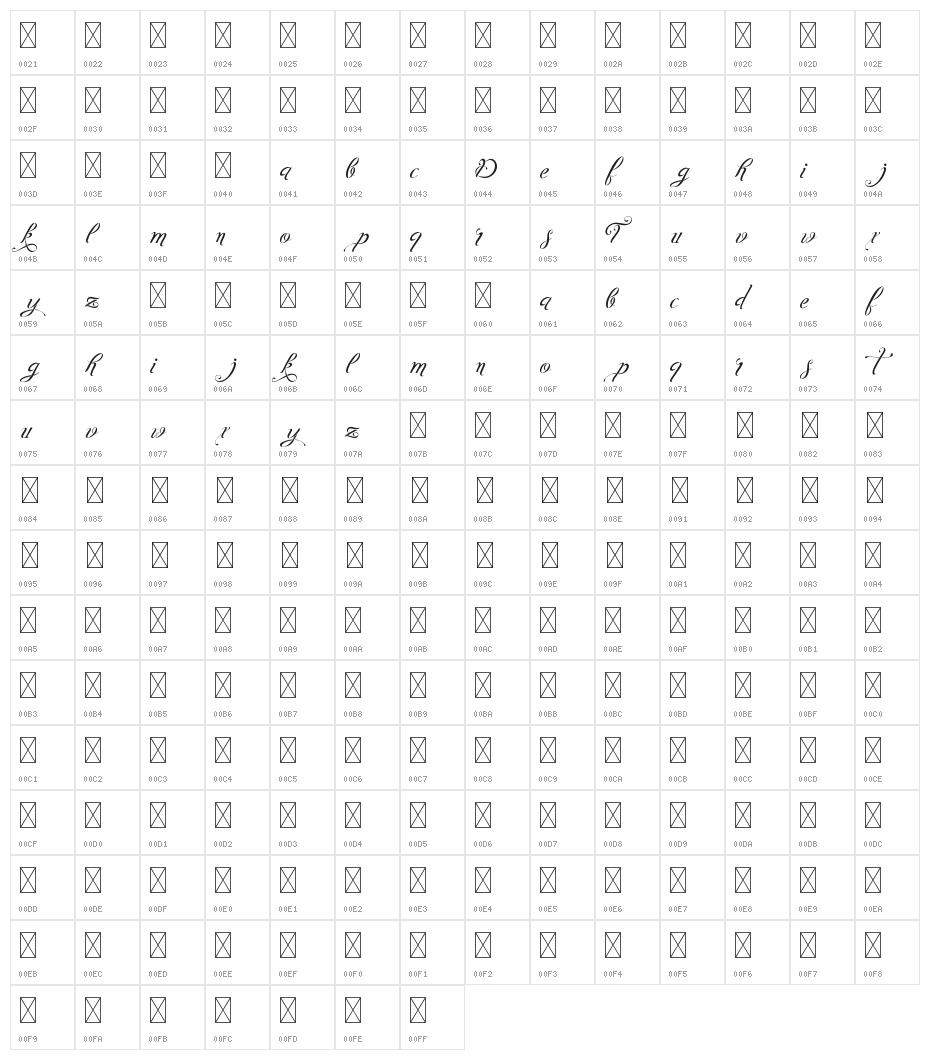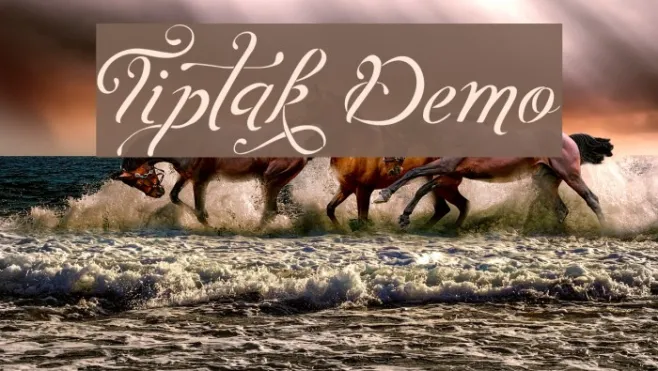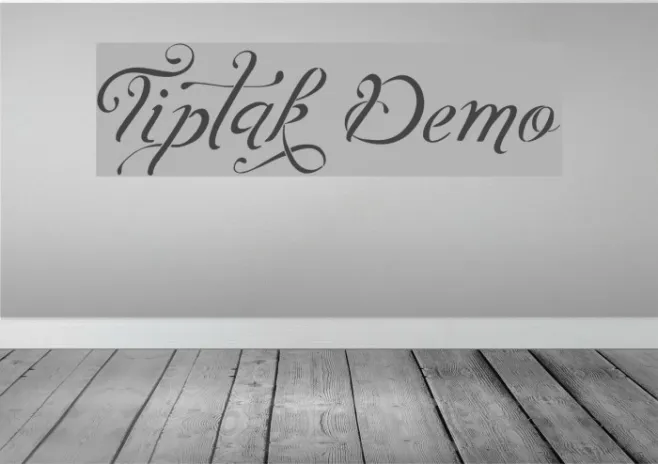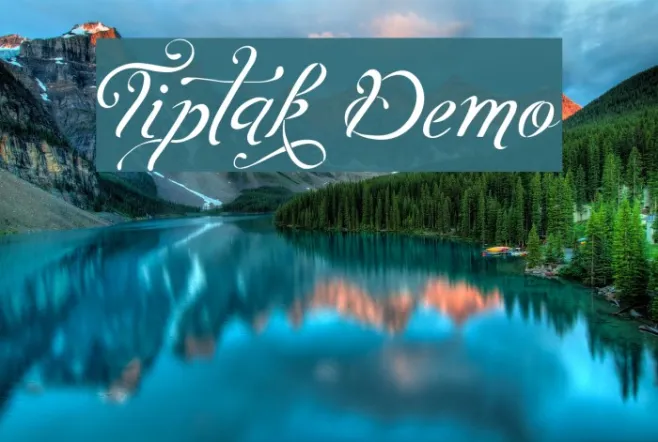
Tiptak Demo Font
Tiptak Demo Description
This elegant script font features flowing, cursive letters with intricate swashes and flourishes. The uppercase letters are particularly ornate, with extended loops and curves that give a sense of movement and grace. The lowercase letters maintain a consistent style, with smooth connections between characters, enhancing readability despite the decorative nature. The font exudes a classic and sophisticated feel, ideal for formal invitations or branding that requires a touch of elegance. The characters are well-balanced, with a medium contrast in stroke thickness, adding to the overall refined appearance.
| Use Case | Invitations, Branding, Logos |
| Proposed Projects | Ideal for wedding invitations, luxury branding, elegant logos, and formal event materials. |